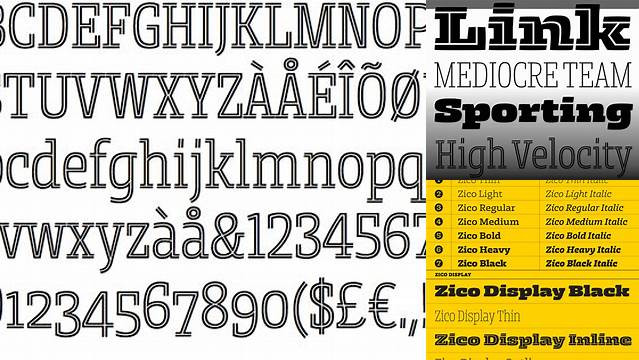
Hey design enthusiasts! Are you on the hunt for a cool, eye-catching font that's totally free? Well, look no further! We're diving deep into the world of the Zico Display Outline Font, exploring how you can snag it for free, and how to use it to create some seriously awesome designs. This article is your go-to guide for everything Zico Outline – from downloading the font to unleashing its creative potential. Ready to level up your design game? Let's get started!
Zico Display Outline Font: Unveiling the Basics
First things first, what exactly is the Zico Display Outline Font? In a nutshell, it's a modern, stylish font characterized by its unique outline style. This means instead of being a solid block of color, the letters are defined by their edges, creating a hollow or outlined effect. This design choice makes it stand out, offering a fresh, contemporary aesthetic that's perfect for grabbing attention. The Zico Display Outline Font belongs to the display font category, making it ideal for headlines, titles, and any design element where impact and visual appeal are key. Guys, it's all about making a statement, and this font does exactly that. The outline style lends itself well to various design applications, allowing for creative layering, color combinations, and visual effects. The clean lines and distinct form of each character ensure readability even at larger sizes, and its modern flair fits perfectly with current design trends. You can practically feel the versatility radiating from it, whether you are aiming for a sleek, minimalist look or something bolder and more dynamic.
This font has an unmistakable personality, making it a great choice when you want to infuse your designs with a touch of creativity and flair. From posters to web graphics to social media content, the Zico Outline Font delivers a memorable visual experience. When working with this font, think about its impact. This design is not just a set of letters; it's an opportunity to enhance communication through the aesthetics, making every word pop, and every design element come to life. The appeal of this font extends beyond simple functionality; it's an expression of style, making a bold statement in any context. By embracing this font, your designs can achieve a higher level of professionalism and visual appeal. So, as you are looking to elevate the level of your creative projects, this font is one of the best ways to accomplish it.
Features of Zico Display Outline Font
This font offers a range of features, including uppercase and lowercase letters, numbers, and special characters, ensuring you have all the necessary elements to create dynamic designs. Its clean and modern design is optimized for readability, guaranteeing your message is clear and impactful. Zico Display Outline Font is not just a font; it is a statement. Its versatility allows it to be used in a wide variety of design projects. The beauty of the Zico font lies in its ability to bring an exciting and modern touch to any design. It's an ideal selection for those who want to infuse their projects with a unique style and visual appeal. The font's adaptability, high readability, and modern design make it a must-have for every designer looking to create designs that are eye-catching. The font is a great addition to any creative project, whether you are a professional designer or just starting out. Embrace the Zico Outline and get ready to turn your creative ideas into reality. So, get the font, experiment with different styles, and make the most of its characteristics. It is designed to make your ideas come to life in the most stunning way.
Zico Outline Font in Design: Creative Applications
So, you've got the font, now what? The Zico Display Outline Font is incredibly versatile, making it perfect for a variety of design projects. It shines in headlines, logos, and other design elements where you need to grab attention. Think about using it for website headers, social media graphics, posters, and even business cards. The key is to let the outline style do its job: create a visual impact. You can play around with color, creating contrast between the outline and the fill. The empty space inside the letters gives you the option to experiment with backgrounds, textures, or gradients. The Zico Outline Font will help you create visually stunning content that gets noticed. For instance, in a web design project, the font can add an eye-catching element to headers and calls to action. Similarly, on social media, it adds an element of originality and impact to your content. When designing logos or branding materials, the Zico font will give your brand a fresh and modern feel. It is all about making a statement!
This font will definitely help you create memorable visuals. Consider experimenting with various color combinations to fully appreciate the font's potential. By adding the right background, this font brings an elegant touch to your designs. Using this font will help you create design projects that are sure to draw attention. The font can be used for many things, like website headers, social media graphics, posters, and more. The font's ability to create stunning visuals makes it a useful tool for all kinds of design projects. With some creativity, you can create designs that impress. So, whether you are designing for print or digital media, Zico Outline Font gives you endless opportunities to express yourself. Unleash your creativity, and you will definitely love the results.
Using Zico Outline Font for Logos and Branding
One of the most impactful applications for the Zico Display Outline Font is in logos and branding. Its modern and clean aesthetic is ideal for creating a brand identity that is both memorable and professional. The outline style helps a logo stand out, ensuring it is instantly recognizable. When designing a logo with the Zico font, consider the overall message and values of your brand. Do you want to convey sophistication, modernity, or creativity? Use the font to match your brand's personality. Choose colors that complement the outline style, as well as create a contrast. This helps make the logo easily readable and visually appealing. Remember, simplicity is often key. The Zico Outline Font is inherently striking, so you do not need to overcomplicate your logo design. Experiment with different sizes and placements to ensure the logo looks great across different applications, such as websites, business cards, and marketing materials. The clean lines and distinctive form of each character ensure that the logo remains recognizable, even at smaller sizes. The beauty of this font is that you can change the appearance of your brand. The Zico Outline Font is very versatile, making it a solid choice for anyone looking to create a brand identity that is as modern as it is memorable.